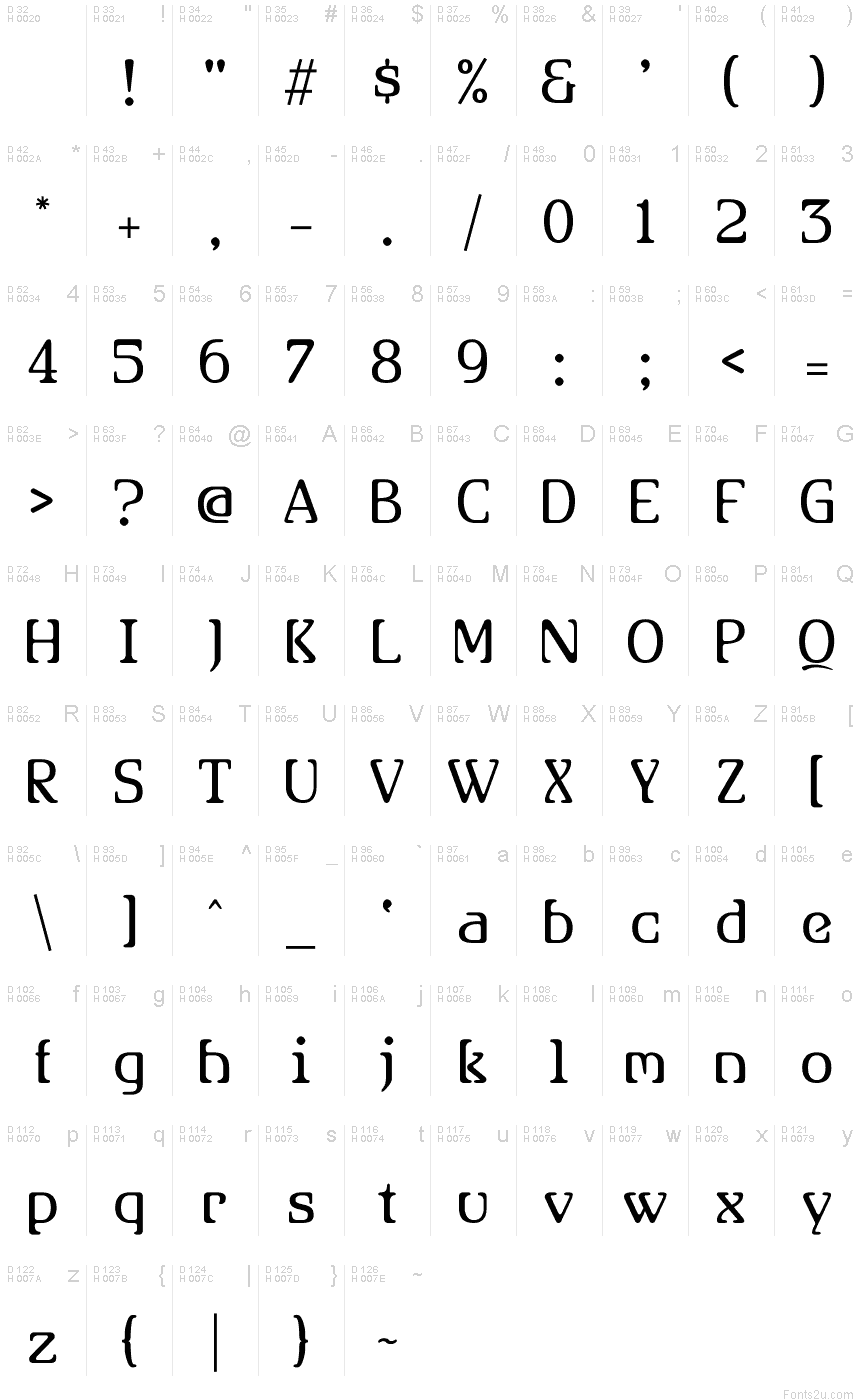
AllHookedUp
All Hooked Up font by Starving-4 Entertainment is a free retro display font with a wonderfully offbeat twist. Its tall, narrow letters bend and curl with little “hooks” at the ends, giving the type a slightly wonky, hand-wrought feel-like old circus posters or early 2000s zine titles. The strokes feel inky and dense, so every word lands with a bold, almost theatrical presence.
Using All Hooked Up turns simple headlines into visual hooks: it shines on gig posters, zines, alt-movie titles, retro flyers, quirky brand wordmarks, and edgy social graphics. The tight rhythm and distinctive curves create a sense of movement, drawing the eye across a line of text. For balance, pair this free font with a clean geometric sans in smaller copy, and let AllHookedUp stay big and loud in your main titles.
A font I designed while solving cryptics by Henry Hook, hence the name.